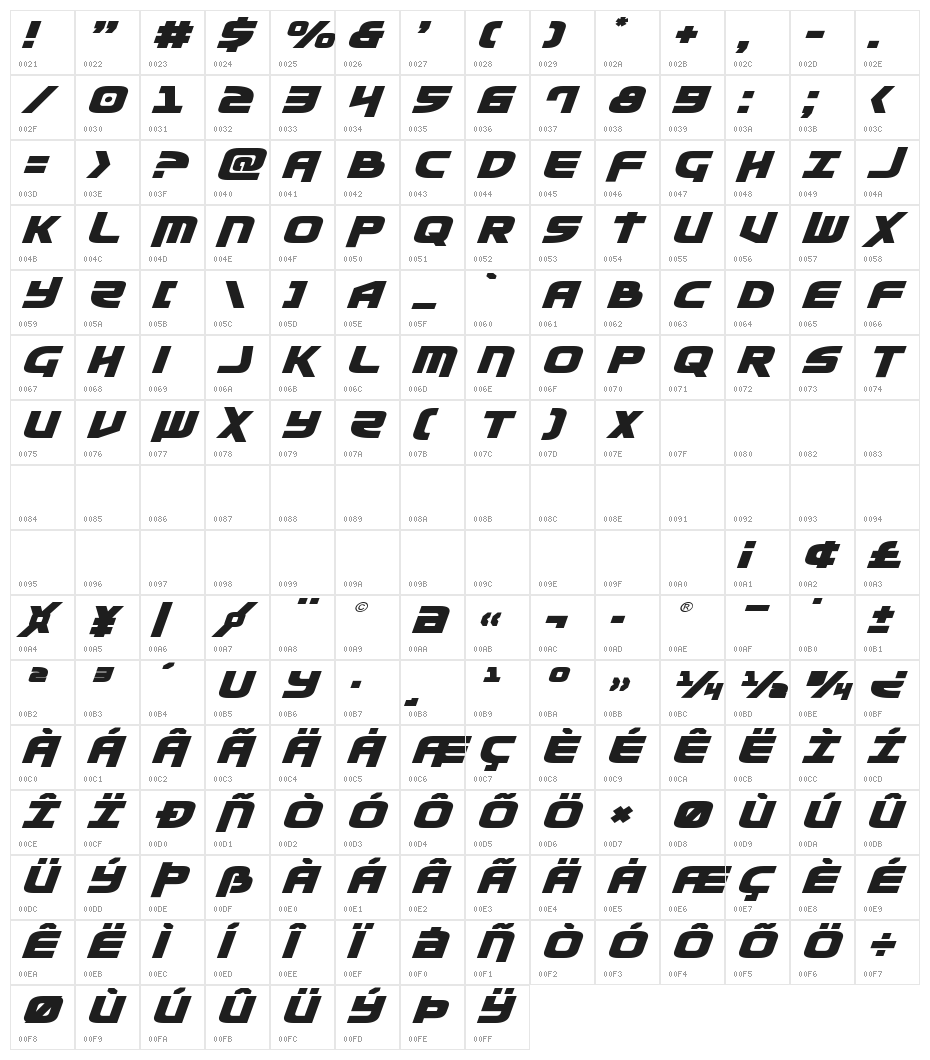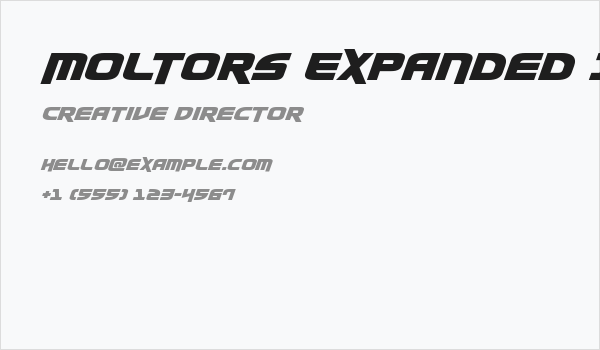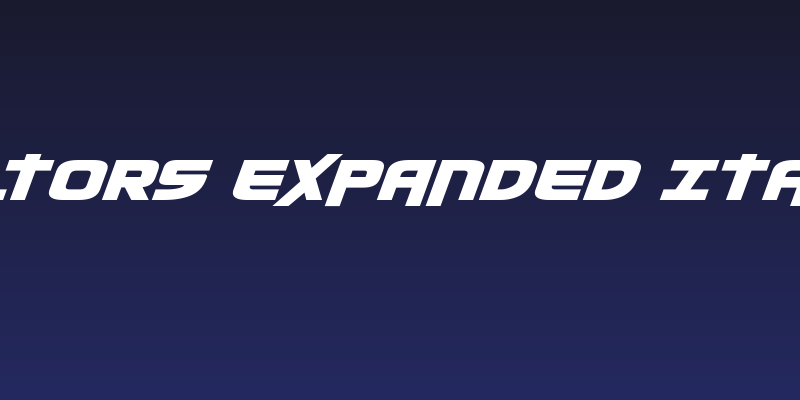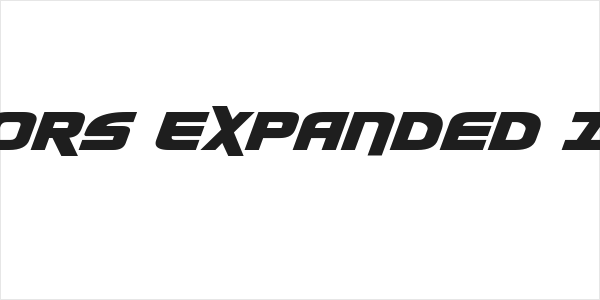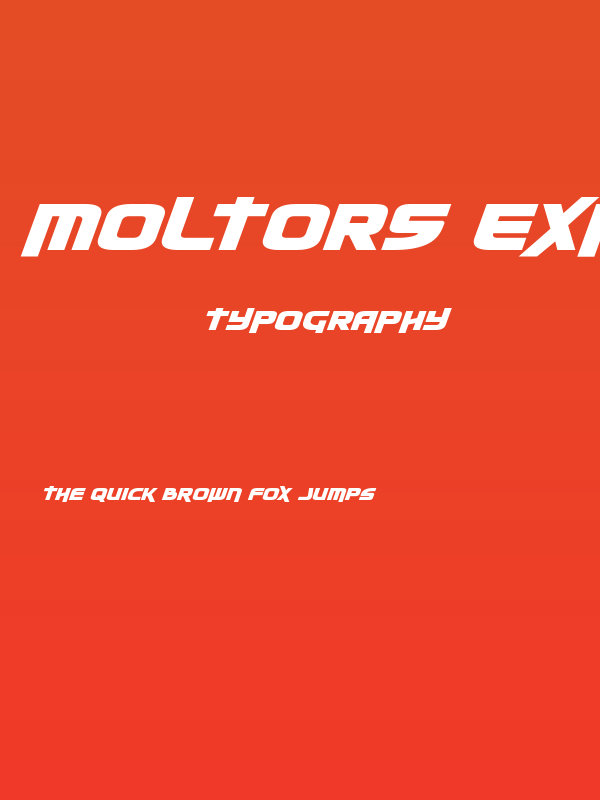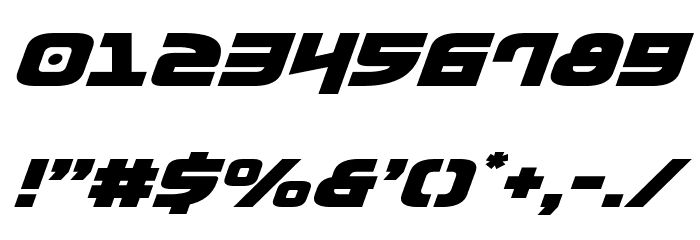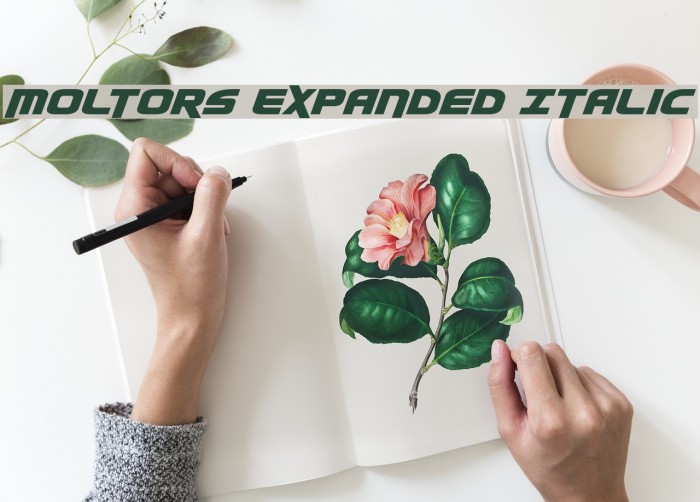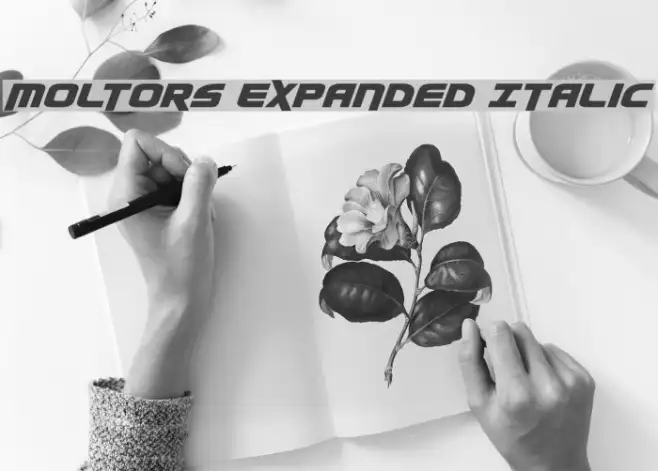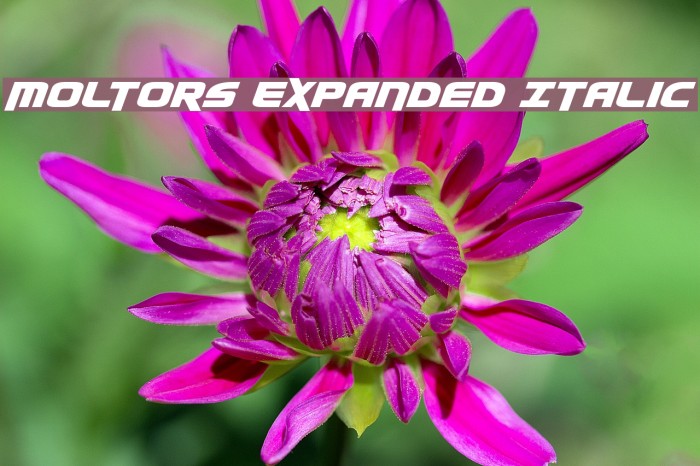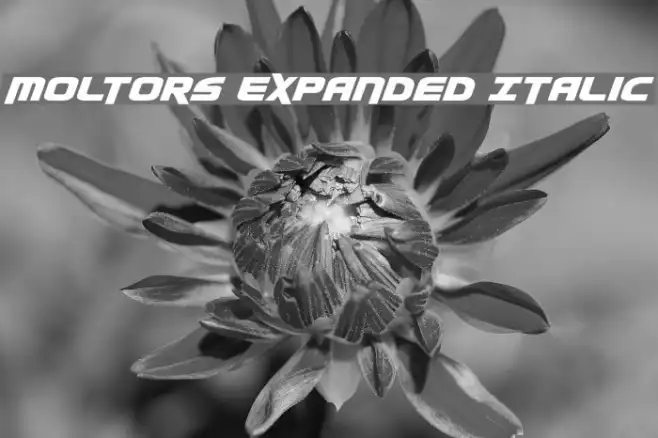
Moltors Expanded Italic Font
Moltors Expanded Italic Description
This font features a bold, italicized style with an expanded width, giving it a dynamic and futuristic appearance. The characters are designed with sharp angles and a forward-leaning stance, enhancing its sense of motion and energy. The uppercase letters are particularly striking, with a uniform height and consistent stroke width, while the lowercase letters maintain the same energetic slant. The numerals are bold and easily readable, matching the overall style of the alphabet. Special characters are included, maintaining the same bold and italicized characteristics. This font is ideal for projects that require a modern and impactful look.
| Categories | Futuristic |
| Width | Expanded |
| Use Case | Logos, Headlines, Posters |
| Proposed Projects | Ideal for branding, sports team logos, video game titles, and sci-fi themed designs. |